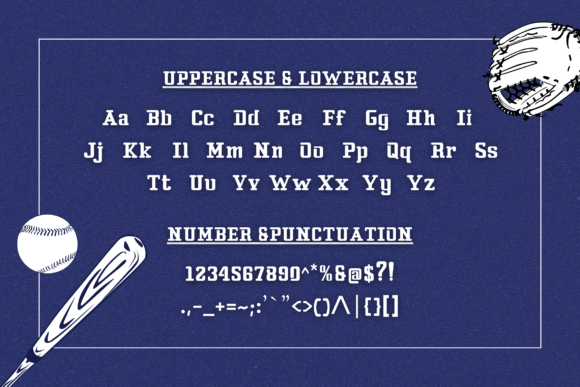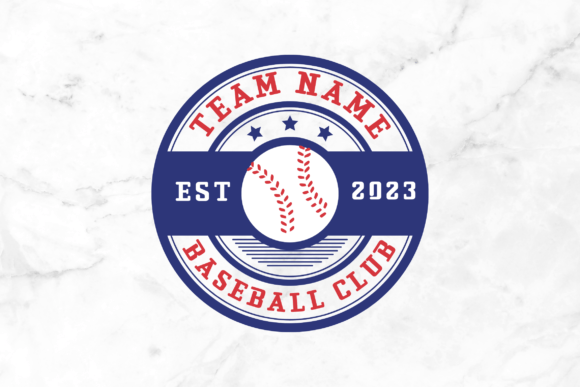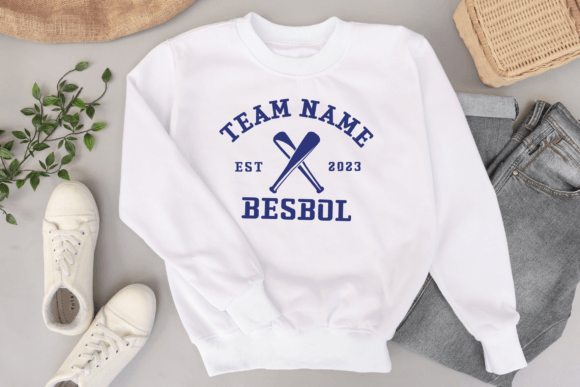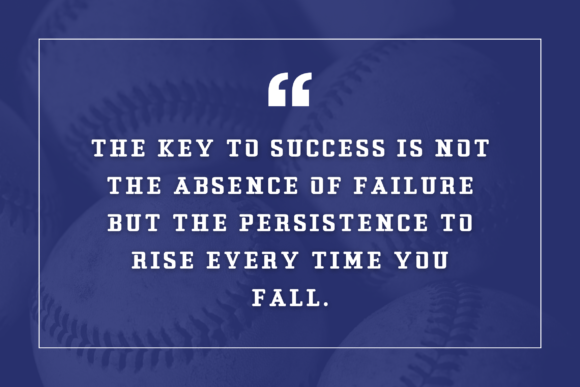
Introducing Besbol Font: The Perfect Blend of Modern Edge and Classic Design
In the world of typography, fonts play a crucial role in conveying the tone and personality of a brand or design. For designers and crafters looking for a font that exudes confidence and sophistication, Besbol Font is an excellent choice. This cool slab serif font brings a touch of contemporary edge to classic design, making it perfect for bold headlines, sports branding, and modern editorial layouts.
The Unique Characteristics of Besbol Font
Besbol Font boasts sturdy letterforms with a subtle industrial flair, giving it a distinctive look that sets it apart from other fonts. Its slab serif design provides a sense of solidity and dependability, while its clean lines and geometric shapes add a touch of modernity. The font’s confident presence makes it an excellent choice for designers looking to elevate their projects and make a lasting impression.
Perfect for Bold Headlines and Sports Branding
Besbol Font is particularly well-suited for bold headlines and sports branding. Its sturdy letterforms and industrial flair give it a strong, athletic look that’s perfect for sports teams, fitness brands, and outdoor enthusiasts. The font’s confident presence also makes it an excellent choice for bold statements and attention-grabbing headlines, ensuring that your message gets noticed.
Modern Editorial Layouts Made Easy
In addition to its use in bold headlines and sports branding, Besbol Font is also perfect for modern editorial layouts. Its clean lines and geometric shapes make it an excellent choice for publications, magazines, and online articles. The font’s subtle industrial flair adds a touch of sophistication and elegance, making it perfect for designers looking to create a modern, edgy look.
Why Choose Besbol Font?
- Unique and distinctive look: Besbol Font’s slab serif design and industrial flair give it a unique and distinctive look that sets it apart from other fonts.
- Confidence and sophistication: The font’s confident presence and elegant lines make it perfect for designers looking to add a touch of sophistication to their projects.
- Versatility: Besbol Font is perfect for a wide range of design projects, from bold headlines and sports branding to modern editorial layouts.
- Easy to read: Despite its bold and industrial look, Besbol Font is easy to read, making it perfect for body text and longer blocks of content.
How to Use Besbol Font in Your Design Projects
- Pair it with a sans-serif font: Besbol Font pairs perfectly with sans-serif fonts, creating a clean and modern look.
- Use it for headlines and titles: The font’s bold and industrial look makes it perfect for headlines and titles.
- Experiment with different colors: Besbol Font looks great in a wide range of colors, from bold and bright to muted and subtle.
In conclusion, Besbol Font is a cool slab serif font that brings a touch of contemporary edge to classic design. Its sturdy letterforms and subtle industrial flair make it perfect for bold headlines, sports branding, and modern editorial layouts. With its confident presence and elegant lines, Besbol Font is an excellent choice for designers and crafters looking to elevate their projects and make a lasting impression.